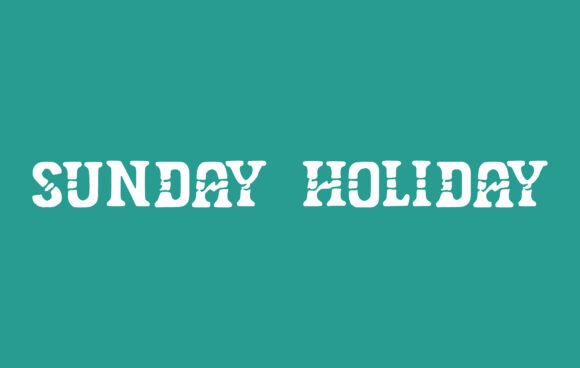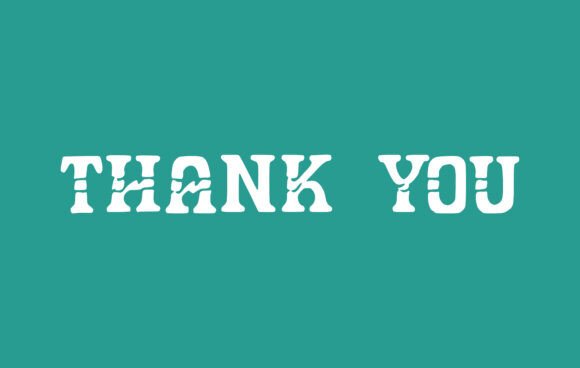
Introduction to Lettrix Font
Have you ever stared at a blank design canvas, searching for the perfect font to bring your creative vision to life? For many designers, this moment of uncertainty can be a major obstacle in the creative process. But what if you stumbled upon a font that not only sparks inspiration but also perfectly captures the essence of your futuristic design concept?
Enter the Lettrix Font, a bold and mechanical slab serif font with stencil-style details that give it an industrial edge. This design resource is a game-changer for designers looking to create eye-catching display designs, signage, and tech branding that exudes a sense of innovation and modernity.
Key Features of Lettrix Font
- High-quality, hand-drawn design with a unique and creative style, perfect for a variety of design projects.
- Features a large character set, including uppercase and lowercase letters, numbers, and punctuation marks, making it a versatile design resource.
- Perfect for designers working on creative projects, such as logos, branding, and packaging, where a unique and eye-catching font is required.
Honest Review: Lettrix Font
I recently stumbled upon the Lettrix Font while searching for a unique design resource for a creative project. The first thing that caught my attention was its sleek and modern design, perfect for making a statement in any layout.
- ✨ Unique letterforms that add an extra touch to any design
- ✨ High quality vectors that can be easily scaled without losing any detail
- ⚠️ The font may not be suitable for designs that require a transparent background, as it can be quite dense and overpowering
- ⚠️ Limited language support, which may be a concern for those working on multilingual projects
Overall, I’m impressed with the Lettrix Font. It’s a great addition to any designer’s toolbox, and its unique style can really elevate a design. While it may have some limitations, it’s definitely worth checking out for your next creative project.
Tips for Getting the Most Out of Lettrix Font
For optimal results, use Lettrix Font in conjunction with other high-quality design resources, such as images and graphics. Experiment with different font styles and sizes to add visual interest to your design.